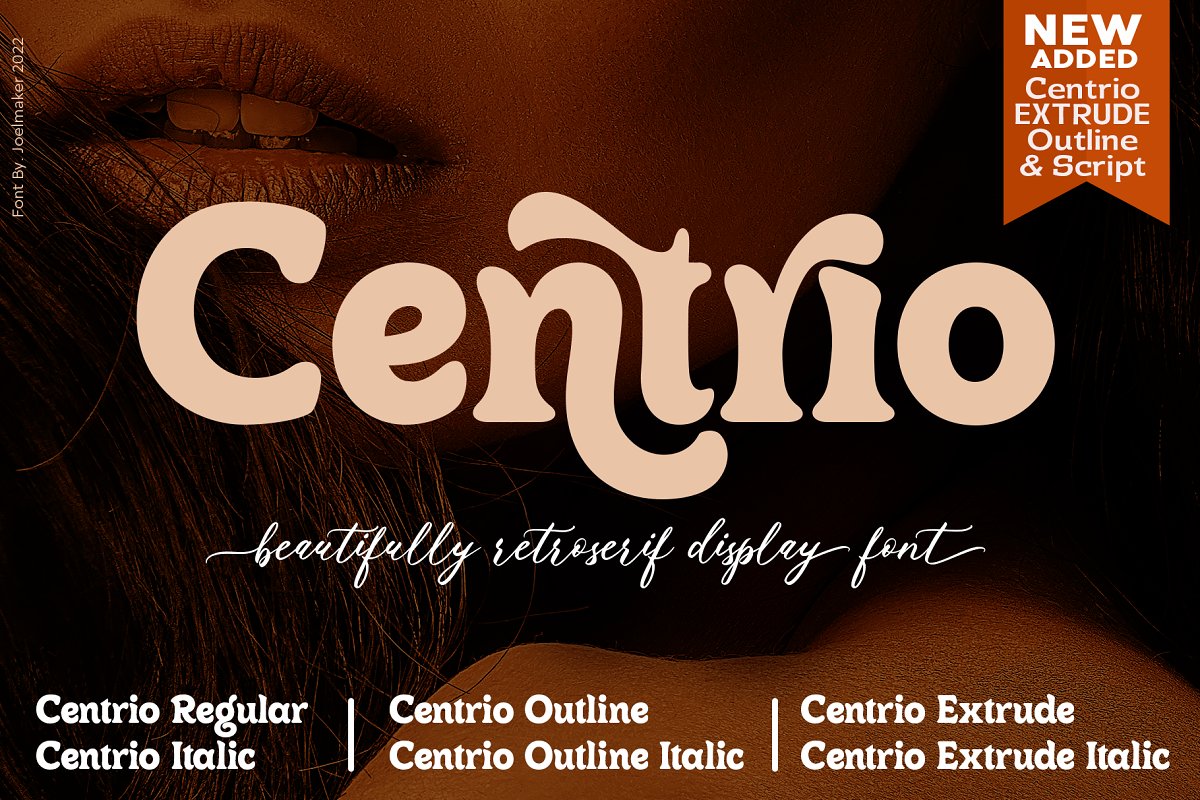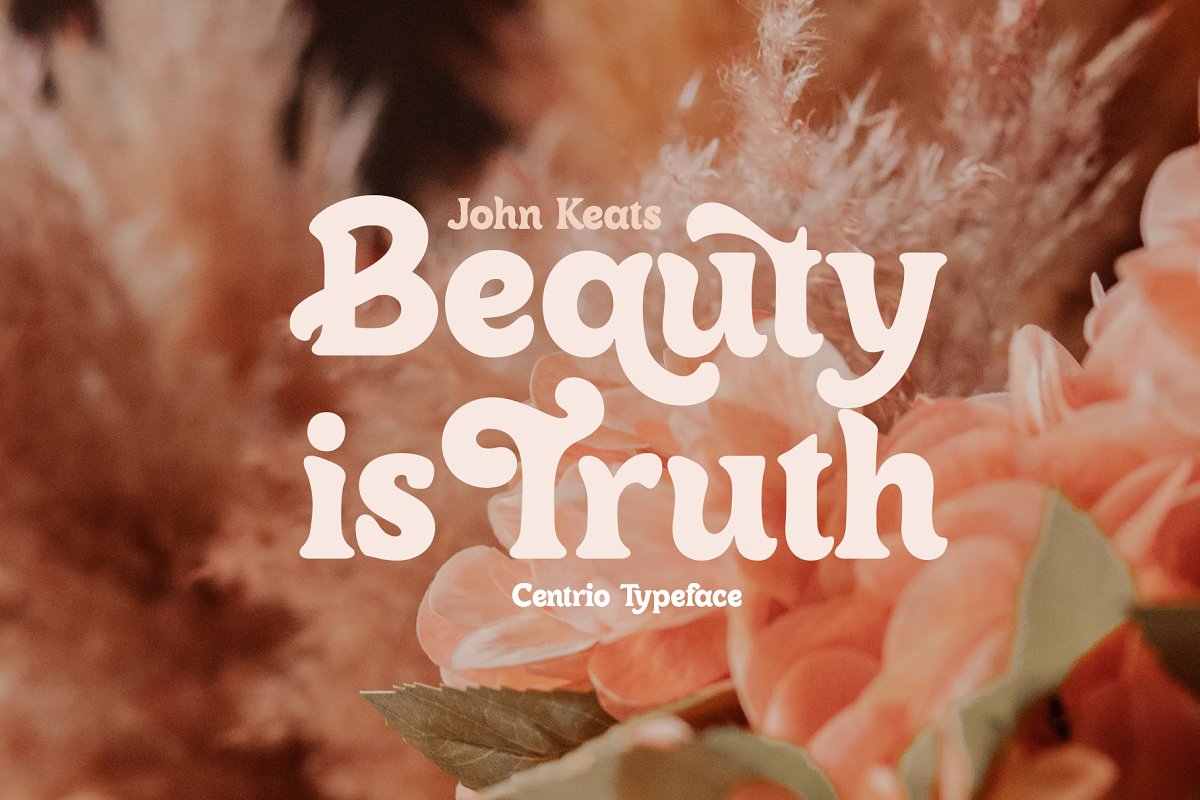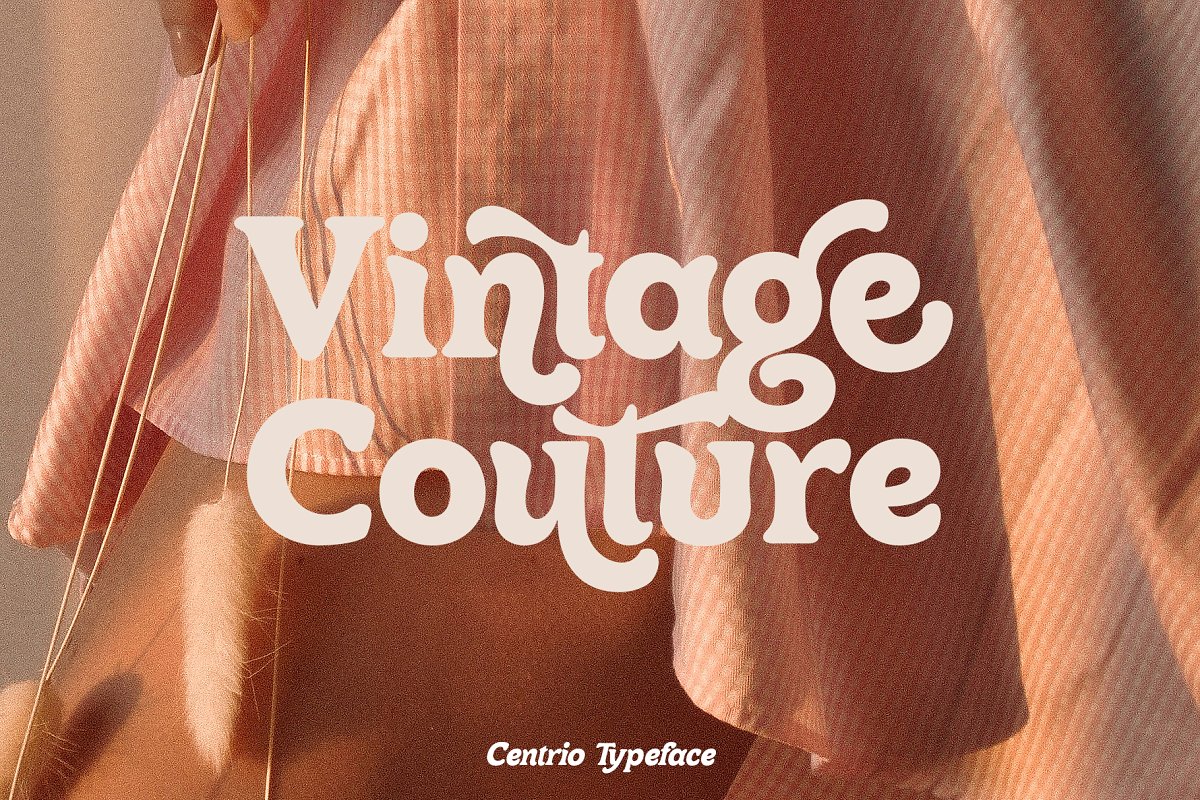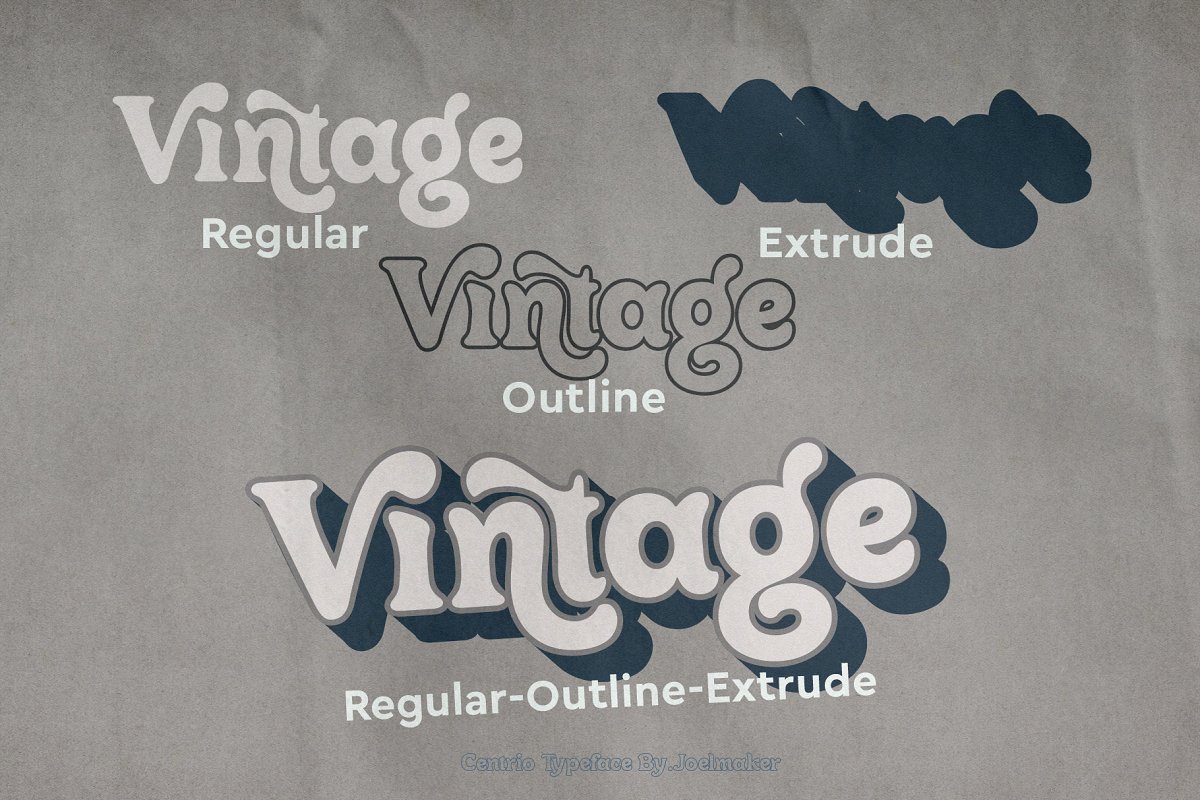
About the Centrio Typeface
Our newest font;https://creativemarket, com/joelmaker/27119899-Heystone-Typefacehttps://creativemarket, com/joelmaker/19679264-Notte-AlexiaAbout the ProductNew Added StyleCentrio Script & Centrio EXTRUDE + Free Krong Bold SanserifCentrio Typeface retro with an artistic touch elegant modern yet vintage the as well as a unique blend of ligatures a letter, so that the authors compose it with a and little swirly embedding, so that a modern font is formed and ready to make a statement by adding elegant and unique flair to your next design project
Centrio Typeface can be used for various purposes such as Magazine Title, Poster, Logo, T-Shirt, Sub Title, Business cards, Magazines, Book Covers, Wedding Invitations,Templates Instagram Story Post, Greeting Cards, Quotes, etc, These letters are embedded into the font file and easily accessible in programs such as photoshop and illustrator